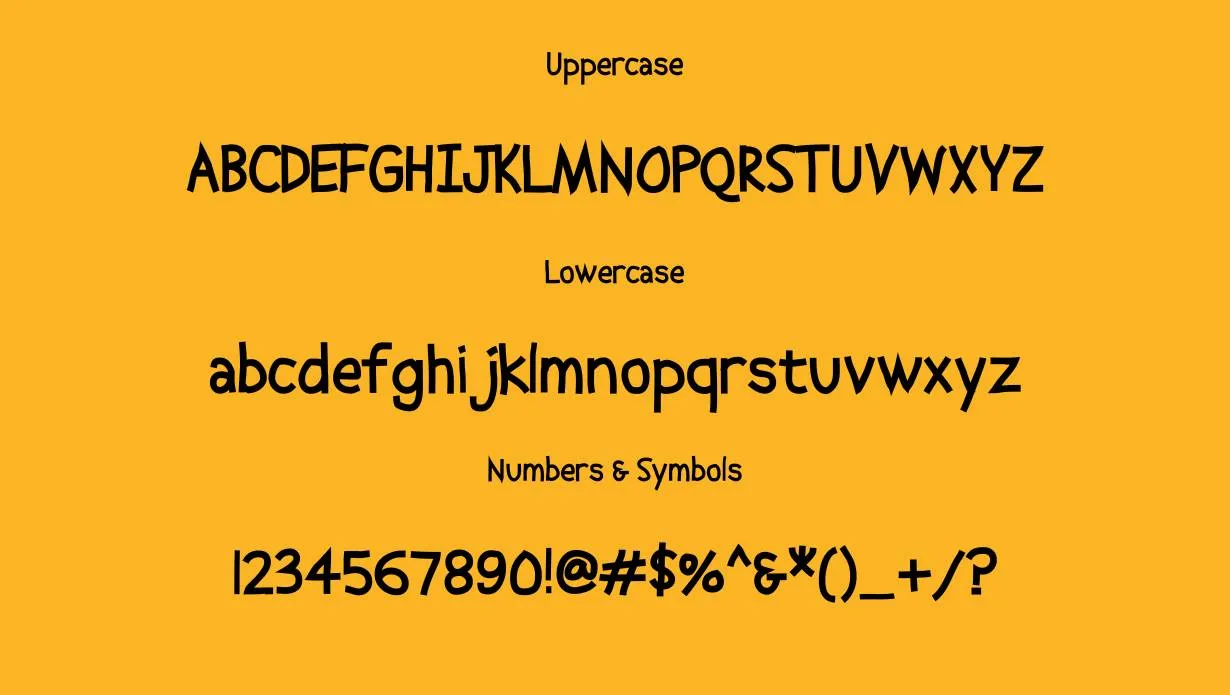
The Abcissa Font Family is versatile and practical. It provides a range of styles that can cater to various design requirements.
This font is often used in projects requiring various tones or moods within the same theme. Its adaptability makes it a handy choice, allowing for creative flexibility and consistency across different designs. Whether used in branding or publications, this font family provides diversity and coherence to the text.
| Name | Abscissa Font |
| Designer | Unknown |